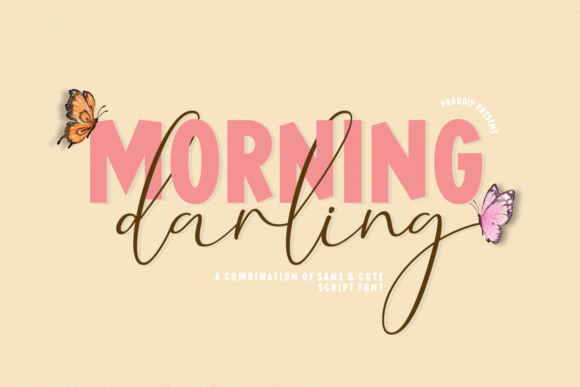
Morning Darling Font: A Delightful and Modern Font Duo for Your Design Projects
In the world of typography, fonts play a crucial role in conveying the tone and personality of a design. With the right font, you can add a touch of elegance, sophistication, or playfulness to your work. If you’re looking for a font that combines a playful script font with a sleek and elegant sans-serif font, look no further than the Morning Darling font duo. In this article, we’ll explore the features and benefits of the Morning Darling font duo and how it can elevate your design projects.
What is Morning Darling Font?
Morning Darling is a delightful and modern font duo that combines a playful script font with a sleek and elegant sans-serif font. The script font exudes a charming and whimsical feel, while the sans-serif font adds a touch of sophistication and modernity. The Morning Darling font duo is a versatile and stylish choice for a wide range of design projects.
Key Features of Morning Darling Font
- Playful Script Font: The script font in the Morning Darling font duo is playful, charming, and whimsical. It’s perfect for adding a touch of personality to your designs.
- Sleek and Elegant Sans-Serif Font: The sans-serif font in the Morning Darling font duo is sleek, modern, and elegant. It adds a touch of sophistication to your designs.
- Versatile and Stylish: The Morning Darling font duo is a versatile and stylish choice for a wide range of design projects, from logos and websites to marketing campaigns.
- Cute and Modern Aesthetic: The Morning Darling font duo has a cute and modern aesthetic that makes it perfect for creating designs that are both fun and professional.
Ideas for Using Morning Darling Font
The Morning Darling font duo is a versatile font that can be used for a wide range of design projects. Here are some ideas for using this font:
- Logo Design: Use the Morning Darling font duo to create a logo that’s both playful and sophisticated.
- Website Design: Use the Morning Darling font duo to add a touch of elegance and modernity to your website.
- Marketing Campaigns: Use the Morning Darling font duo to create marketing campaigns that are both fun and professional.
- Social Media Graphics: Use the Morning Darling font duo to create social media graphics that are both cute and modern.
- Print Materials: Use the Morning Darling font duo to create print materials, such as brochures, flyers, and business cards.
Benefits of Using Morning Darling Font
The Morning Darling font duo offers a range of benefits, including:
- Unique and Eye-Catching: The Morning Darling font duo is a unique and eye-catching font that will help your designs stand out.
- Versatile: The Morning Darling font duo is a versatile font that can be used for a wide range of design projects.
- Easy to Read: The Morning Darling font duo is easy to read, making it perfect for body text and headlines.
- Customizable: The Morning Darling font duo is customizable, allowing you to adjust the font to suit your design needs.
Tips and Tricks for Using Morning Darling Font
Here are some tips and tricks for using the Morning Darling font duo:
- Use the Script Font for Headlines: Use the script font for headlines and titles to add a touch of personality to your designs.
- Use the Sans-Serif Font for Body Text: Use the sans-serif font for body text to add a touch of sophistication and modernity.
- Experiment with Font Sizes: Experiment with different font sizes to create visual interest and hierarchy in your designs.
- Pair with Other Fonts: Pair the Morning Darling font duo with other fonts to create a unique and eye-catching design.
In conclusion, the Morning Darling font duo is a delightful and modern font duo that combines a playful script font with a sleek and elegant sans-serif font. Its cute and modern aesthetic makes it perfect for creating designs that are both fun and professional. Whether you’re designing a logo, a website, or a marketing campaign, the Morning Darling font duo is sure to add a touch of charm and elegance to your work.